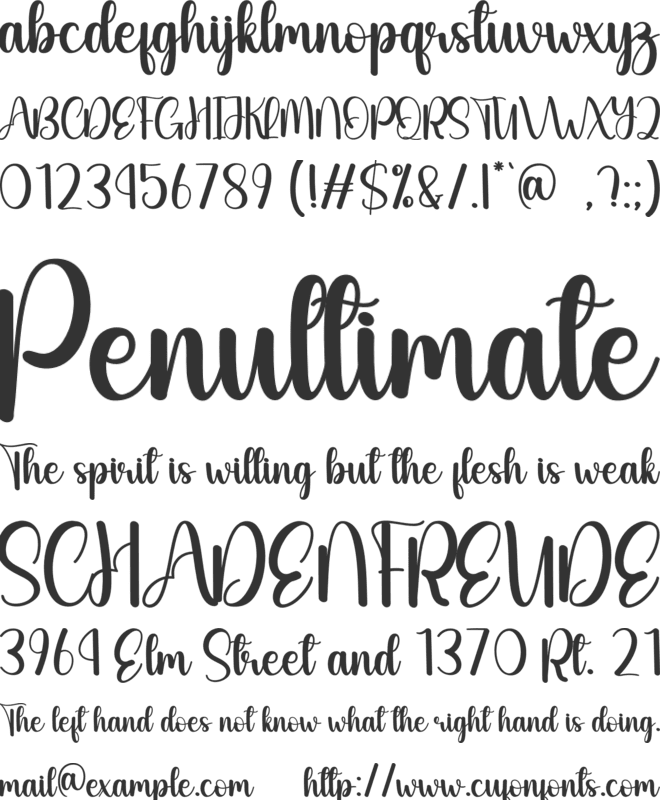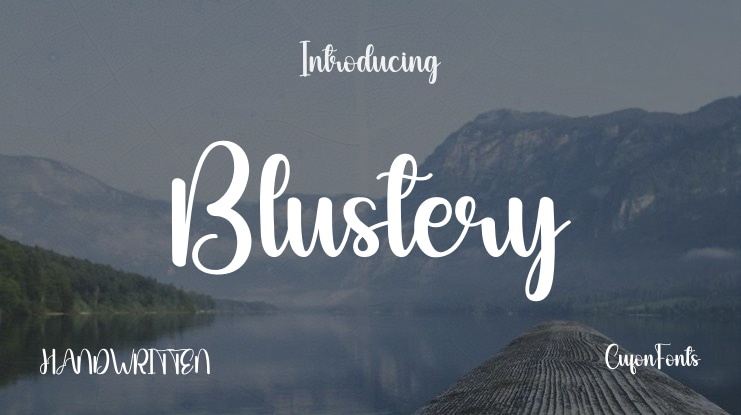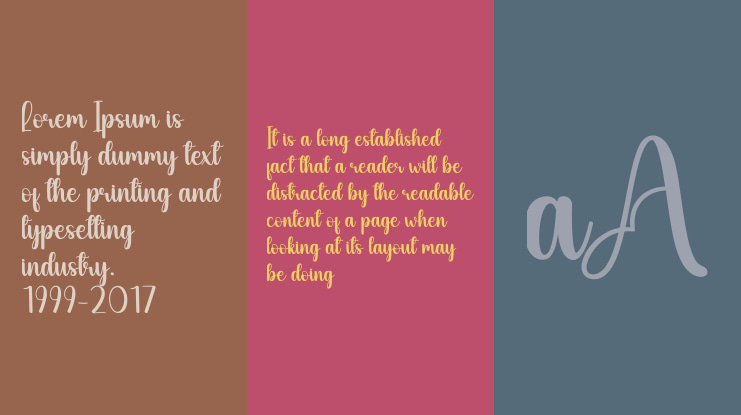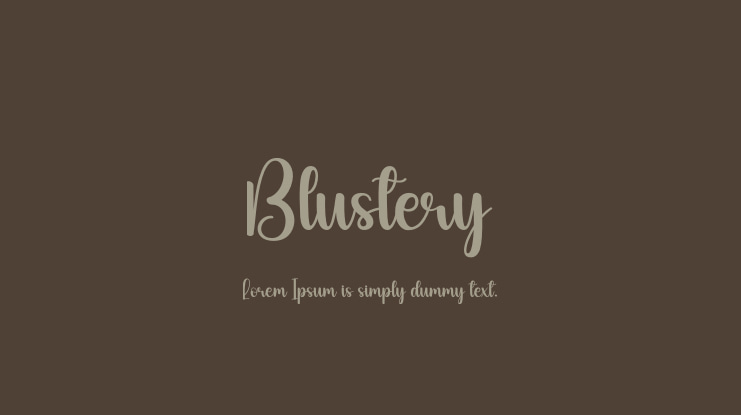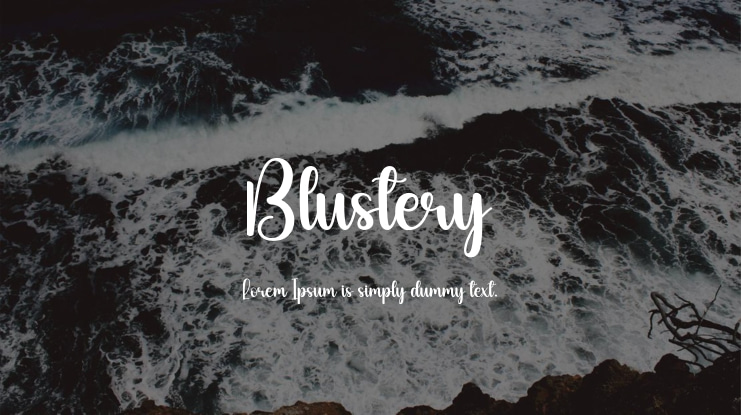
We offer special creative products designed just for you, promising an extraordinary experience. Our latest style letters are ideal for wall displays, wedding invitations, social media post logos, advertisements, product packaging, product designs, labels, photography, watermarks, invitations, stationery, and any project that requires tasteful handwriting.